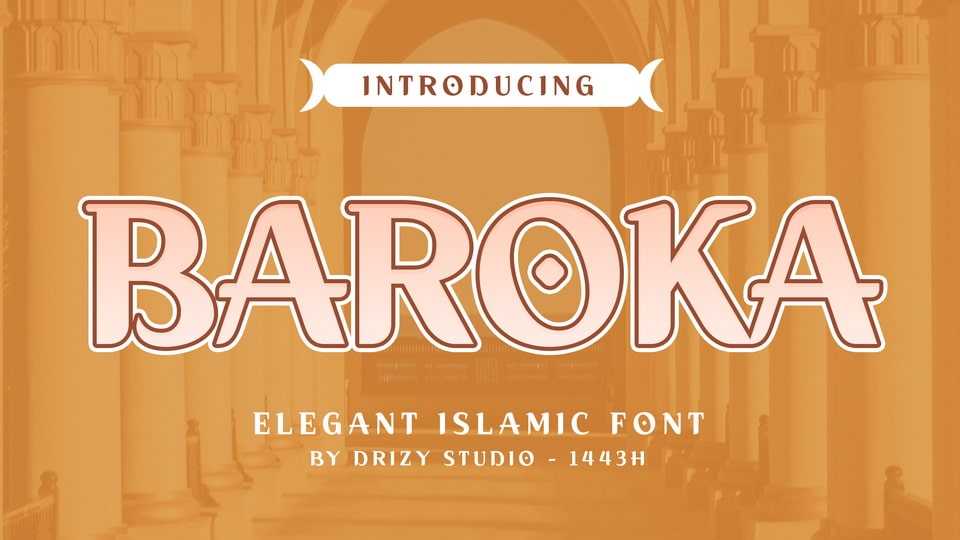
Download Baroka font, an elegant Islamic display typeface. Baroka has a modern yet whimsical style and it will undoubtedly immerse your designs into a magical world.
Designer: Drizy Studio